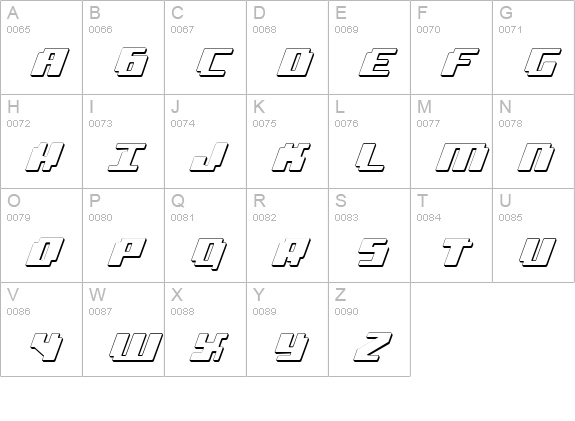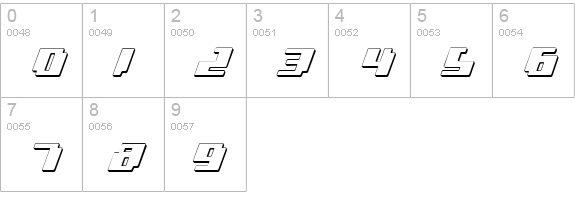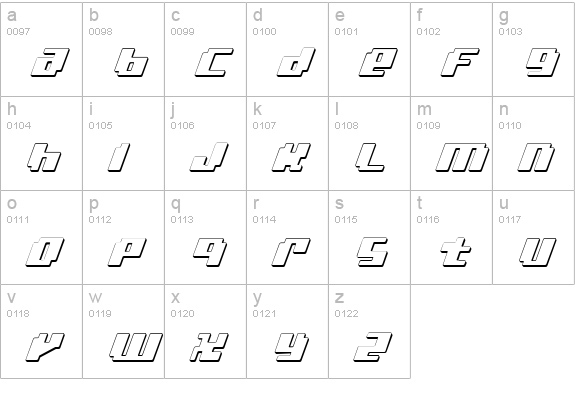
bad robot 3d italic Font Details
bad robot 3d italic is a distinctive, italic variant in the bad typeface family \xE2\x80\x94 well suited to design and typography projects.
Immerse yourself in the futuristic world of technology and innovation with the Bad Robot 3D italic font. This avant-garde typeface exudes a sense of power and sophistication, making it the perfect choice for projects that require a bold and modern aesthetic. The sharp angles and sleek design of this font create a dynamic visual impact that is sure to captivate your audience. Best of all, the Bad Robot 3D italic font is available for free download at FontsMarket.com. Whether you're designing a cutting-edge website, crafting a high-tech logo, or creating eye-catching graphics, this font will elevate your work to the next level. Embrace the future of design with the Bad Robot 3D italic font and unleash your creativity today.